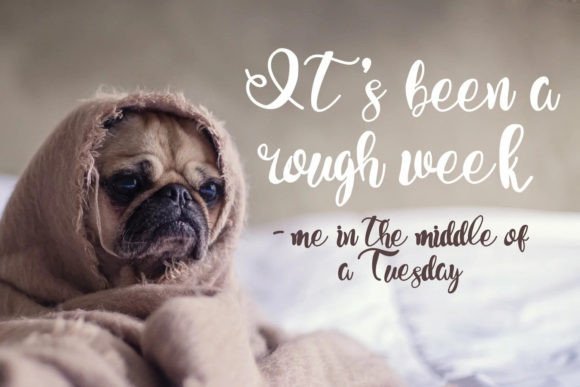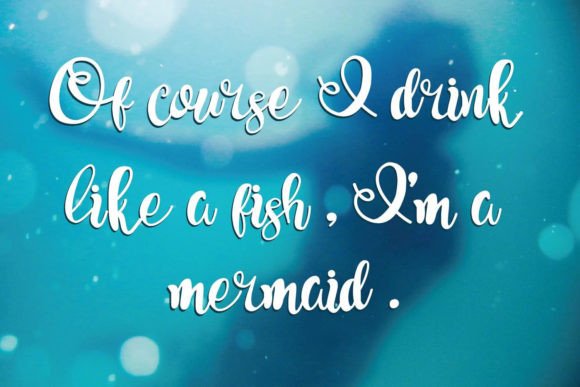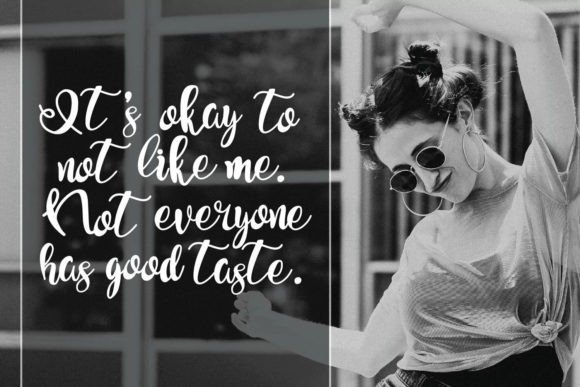
About Day Drinking Font
“Day Drinking” is a fun and modern handwritten script font that brings a bouncy and playful vibe to various design projects. With its lively and contemporary style, this font is a great choice for a wide range of creative applications, making it versatile for invitations, baby gifts, water bottles, decals, stickers, and more.
The fun and bouncy nature of Day Drinking makes it an ideal font for projects where you want to inject a sense of playfulness and modernity. Whether you’re working on digital graphics or physical items, this font is crafted to bring a fresh and energetic aesthetic to your text.
Imagine using Day Drinking for lively invitations, where its modern script adds a touch of excitement to the event. Picture it on baby gifts or water bottles, infusing the design with a playful and contemporary look. Whether applied to decals or stickers, Day Drinking is designed to be a font that enhances the overall vibrancy of your projects.
In summary, Day Drinking is more than just a font; it’s a fun and modern script typeface that adds a bouncy and playful touch to your designs. Let it be the choice that brings a sense of joy and energy to your projects, making them stand out with a lively and contemporary appeal.